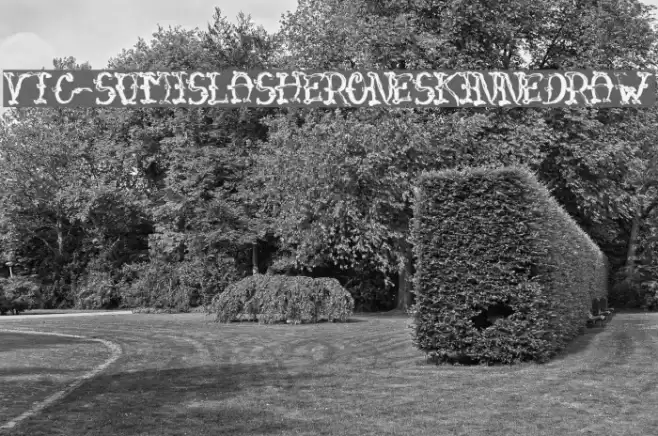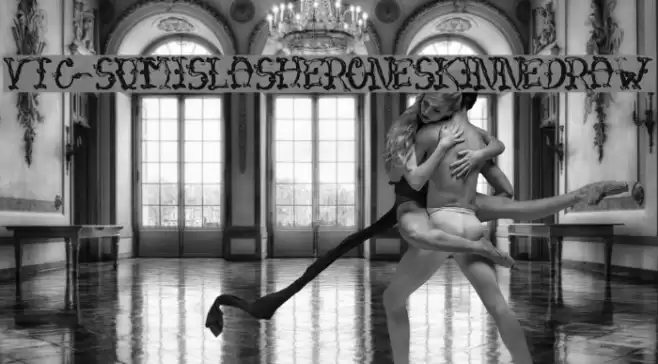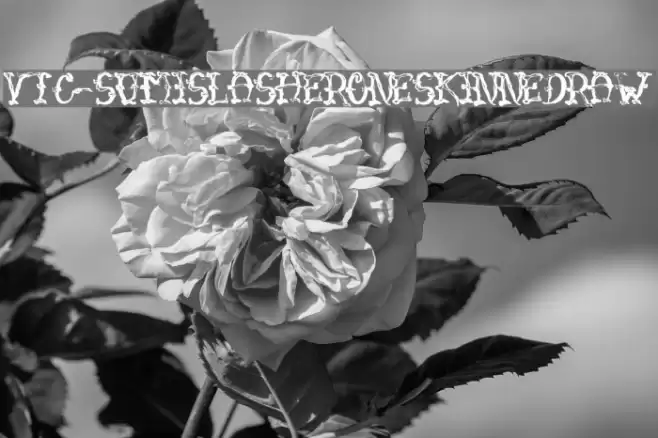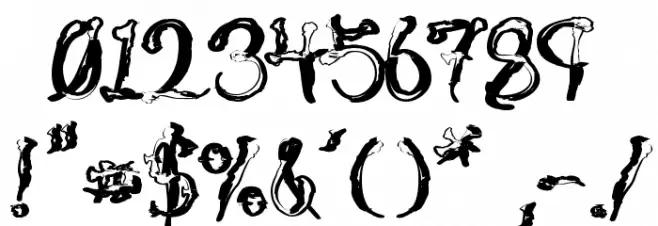
VTC-SumiSlasherOneSkinnedRaw Font
VTC-SumiSlasherOneSkinnedRaw Description
This font features a highly decorative and chaotic style, reminiscent of ink splatters or graffiti. The characters are bold and irregular, with a distressed appearance that gives them a raw, edgy feel. The strokes are uneven, with varying thicknesses and a sense of movement, creating a dynamic and energetic look. This font is ideal for projects that require a rebellious or unconventional aesthetic, such as music album covers, posters, or urban-themed designs. Its unique style makes it stand out, but it may not be suitable for body text due to its complexity.
A bold, chaotic, and decorative font with an ink-splatter aesthetic from Uncategorized fonts.
- Proposed Projects: Ideal for music album covers, posters, urban-themed designs, and rebellious branding.